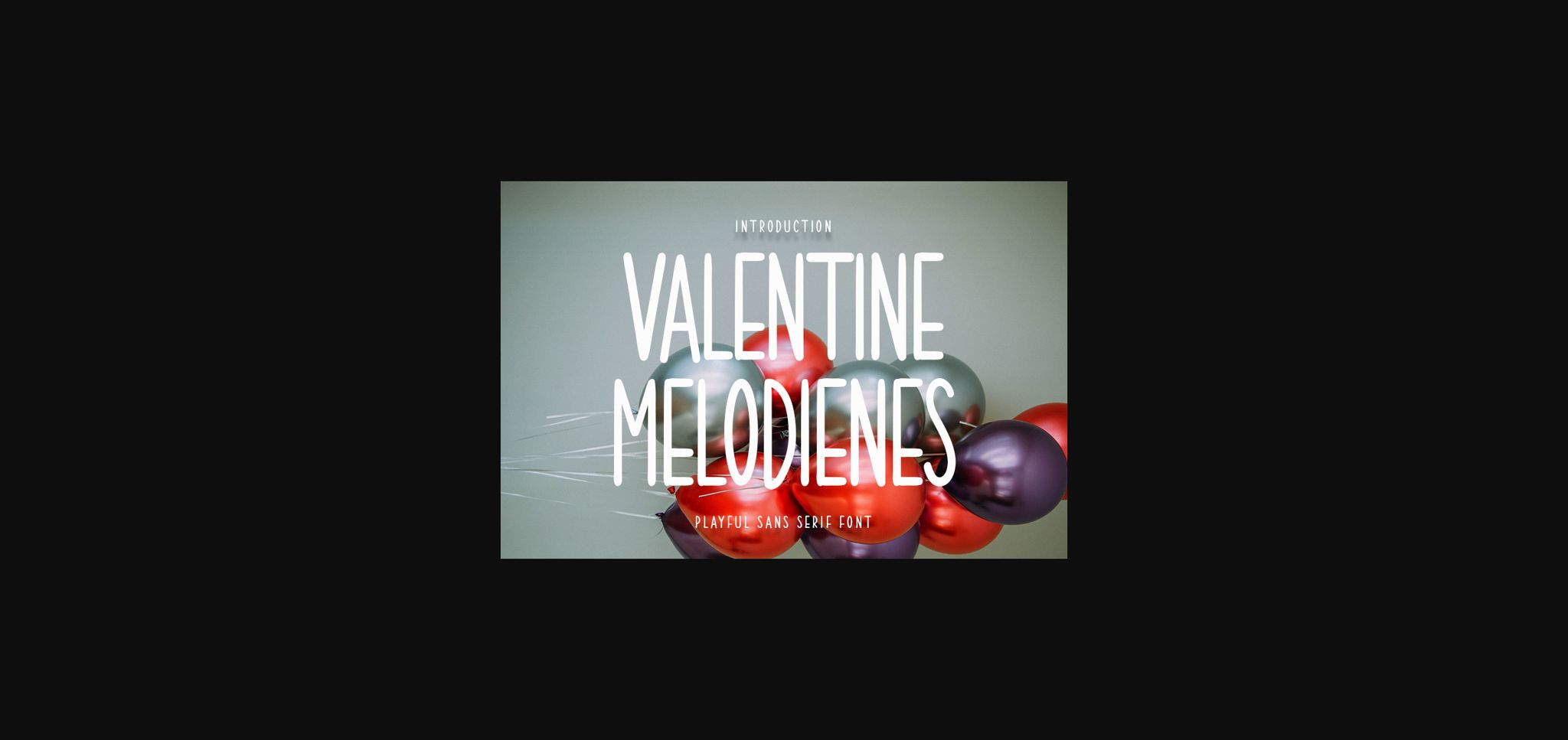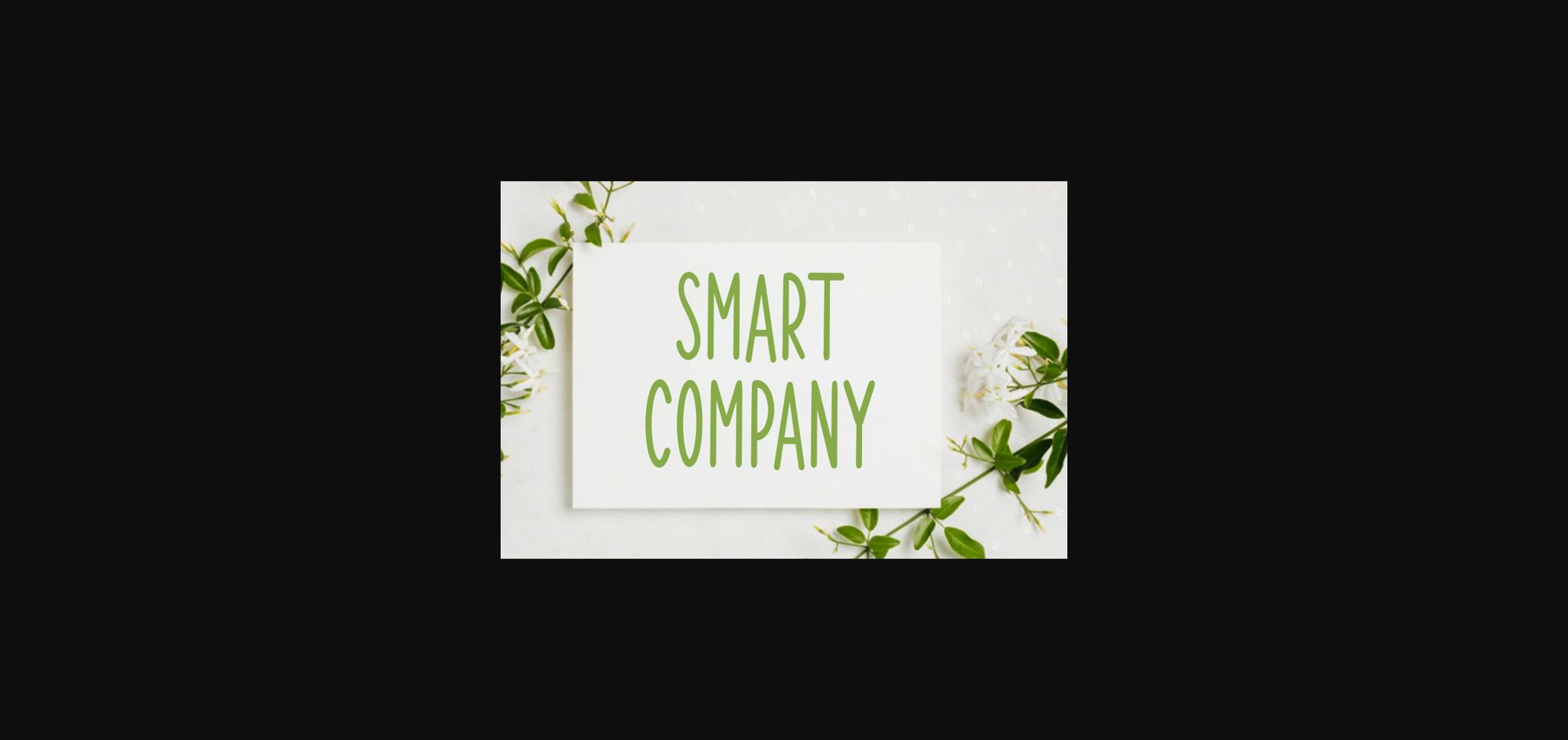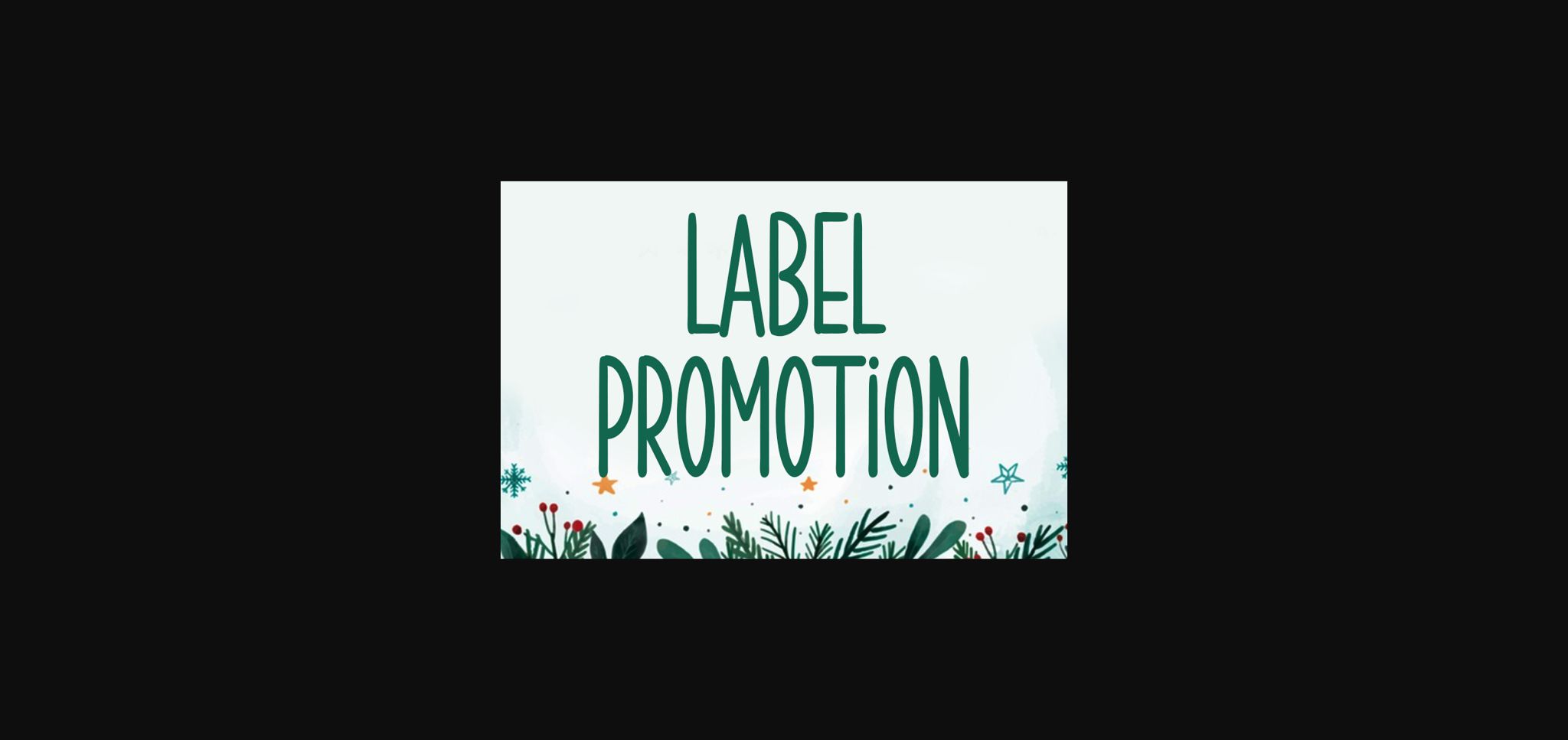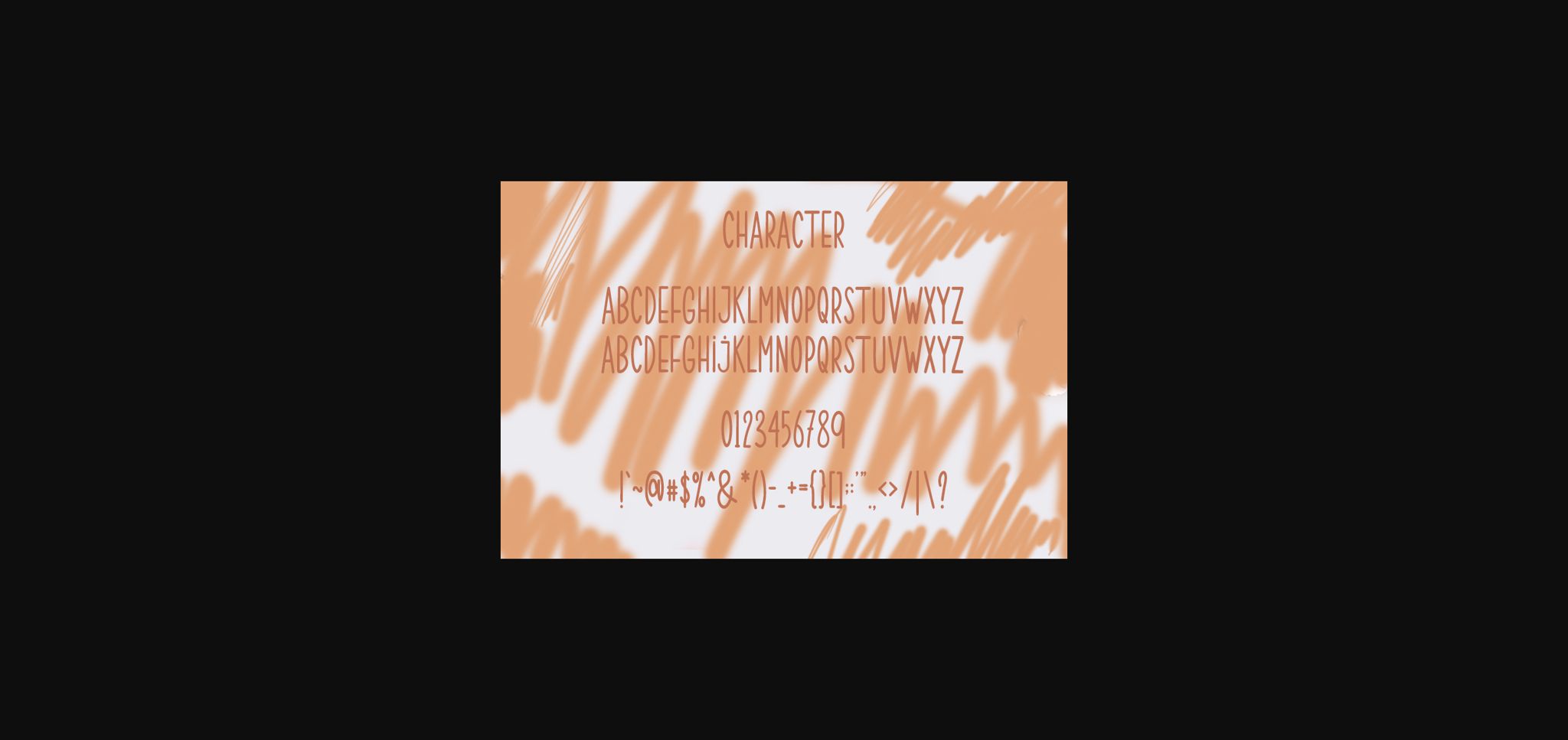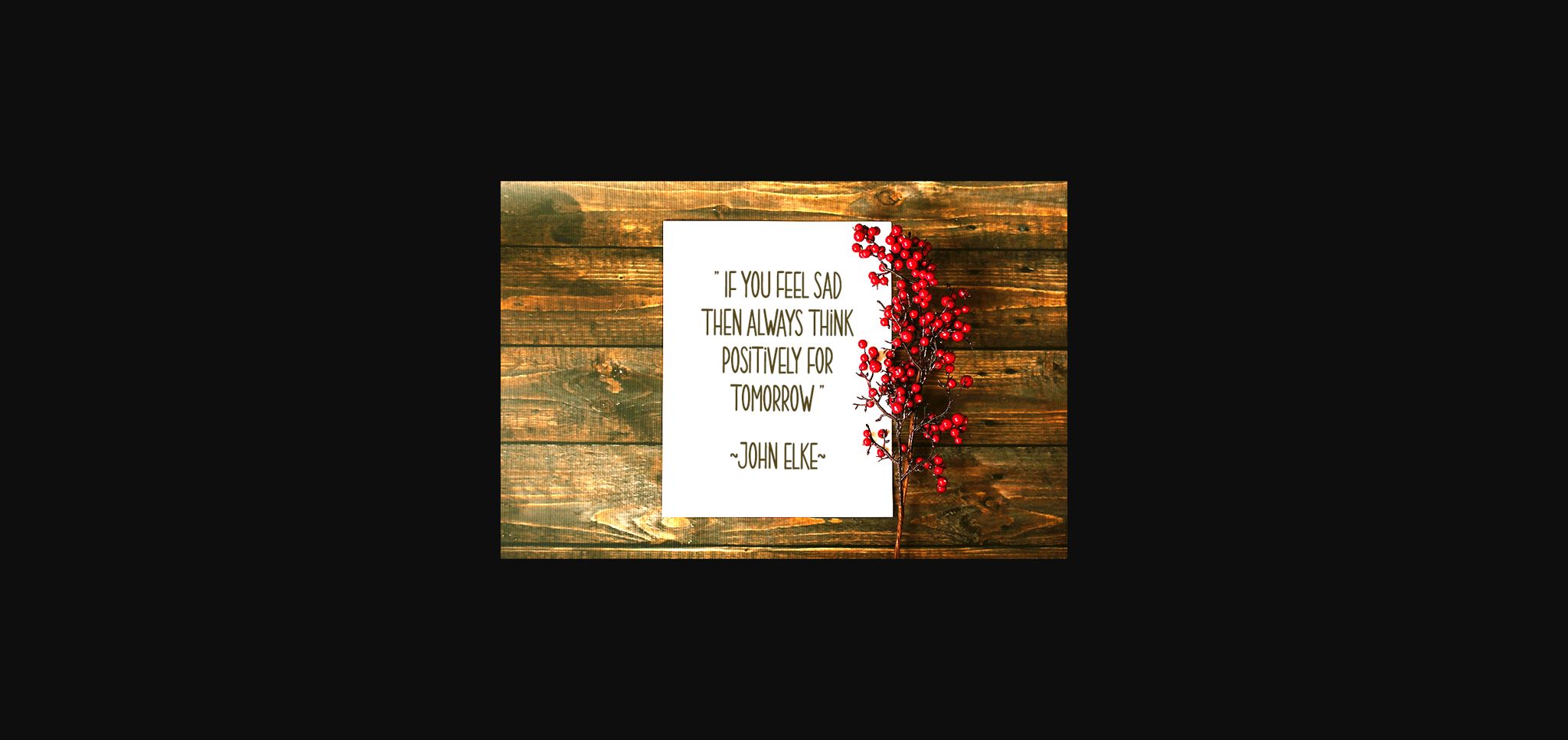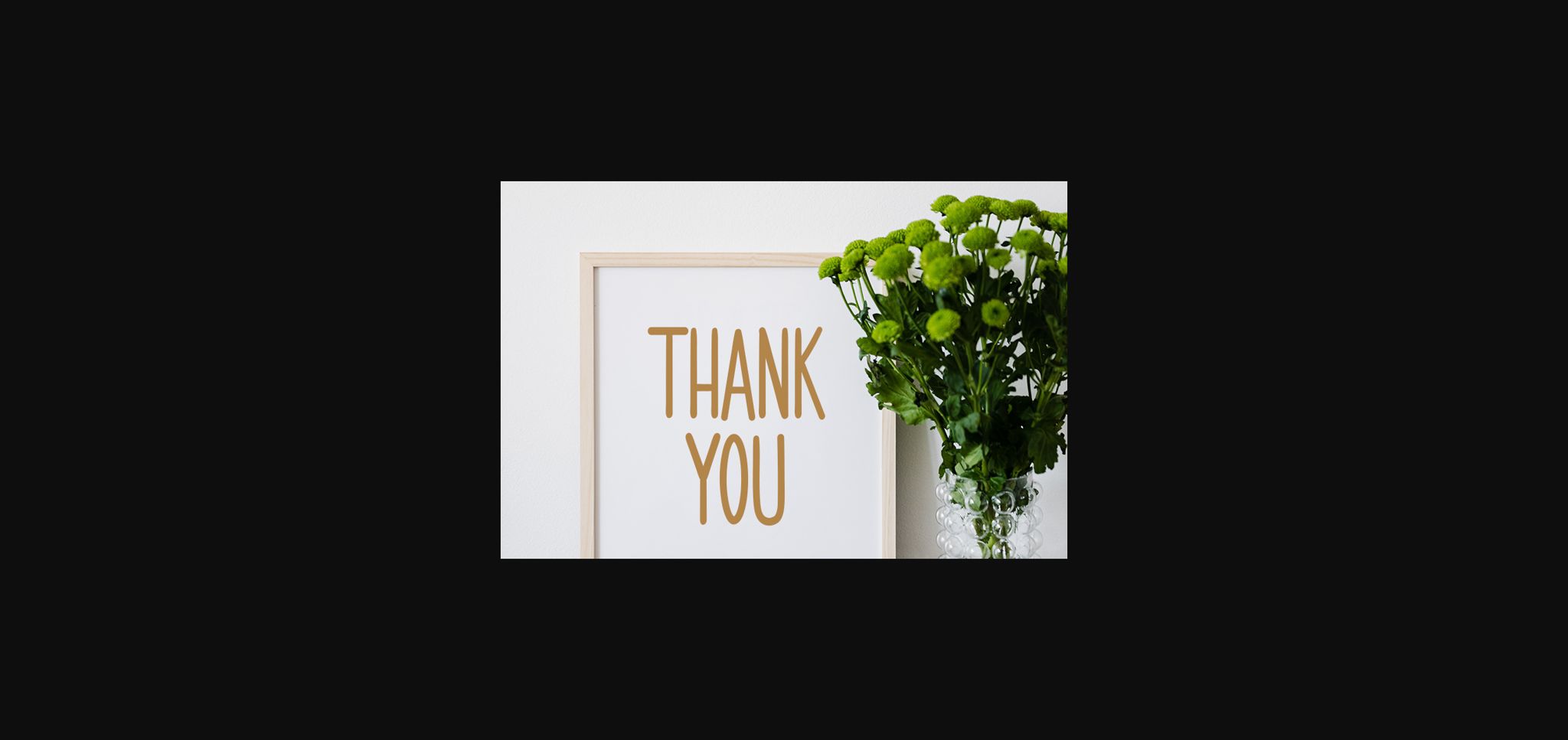
HomeSans Serif FontsValentine Melodienes Font Sans Serif Fonts Valentine Melodienes Font FacebookXPinterestWhatsApp 1 of 8 ... Valentine Melodienes Font Poster 2... Valentine Melodienes Font Poster 3... Valentine Melodienes Font Poster 4... Valentine Melodienes Font Poster 5... Valentine Melodienes Font Poster 6... Valentine Melodienes Font Poster 7... Valentine Melodienes Font Poster 8... About Valentine Melodienes Font Valentine Melodienes is a neat and tall sans serif font. It can effortlessly be matched to a large set of projects, so add it to your creative ideas and notice how it makes them stand out! DOWNLOAD NOW People also explored Wicket Letter Sunrise Wedding Font Wintermelon Font Sewing Patterns 3 Font Exited Font Paper Planes Font Trace Me Please Font Abstract Pattern Font Gaia Font 275 0 TagsValentine Melodienes Font Previous articleLonely FontNext articleVashil Font LEAVE A REPLY Cancel reply Comment: Please enter your comment! Name:* Please enter your name here Email:* You have entered an incorrect email address! Please enter your email address here Website: Save my name, email, and website in this browser for the next time I comment. Personal Use Free Wintersoul Personal Use Free Read more about this font Autumn Flowers Font Personal Use Free Read more about this font Americana Personal Use Free Read more about this font Eniem Personal Use Free Read more about this font BLOG How to Cut Any Font on Cricut: Convert a Font to SVG (Free) Turn any font into a clean SVG so it cuts crisp on Cricut - a quick 3-step workflow using a free font-to-SVG tool. How to Install and Use Fonts on Windows, macOS, and Web Projects The 10 Best Handwriting Fonts to Add Personality to Your Designs Best Fonts for T-Shirt Design – Top 2025 Picks